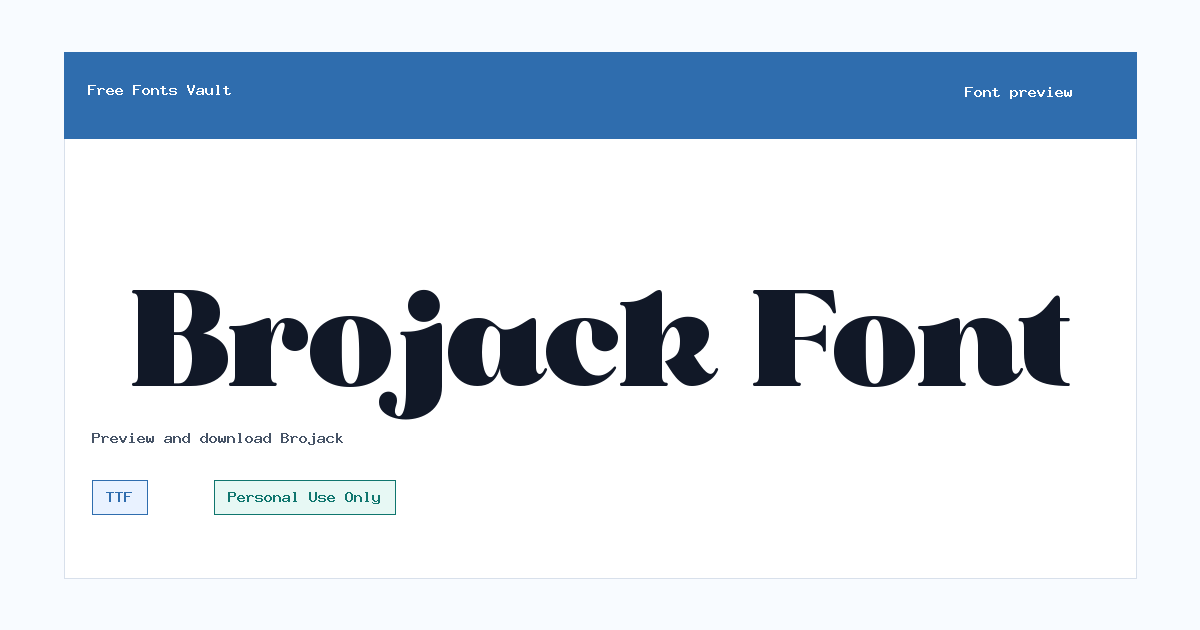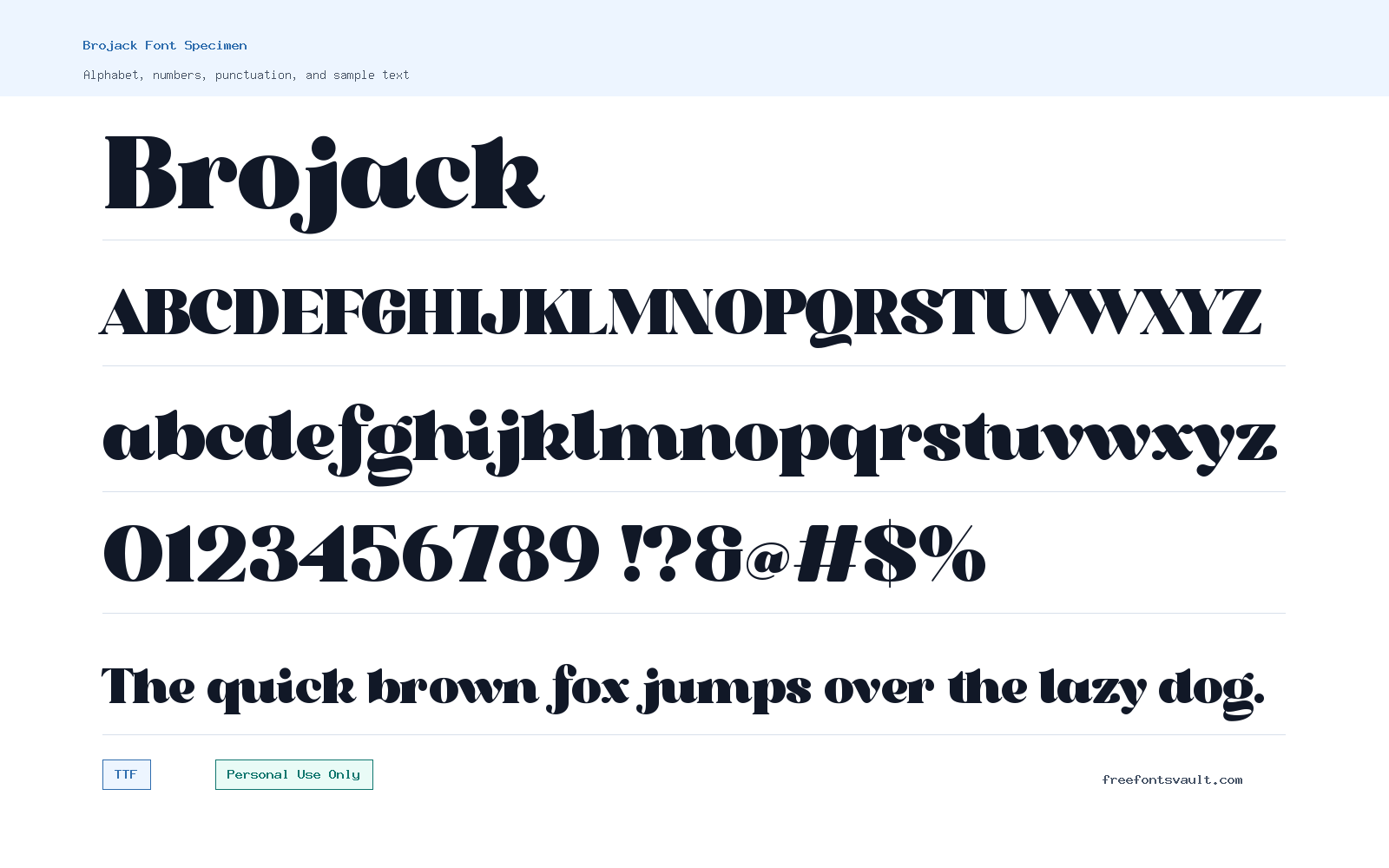
Brojack
Brojack Font
Brojack font.
Brojack is a bold retro serif font with thick strokes, strong curves, and decorative serifs. It is best treated as a display font: something to test in large sizes for titles, posters, packaging mockups, logo drafts, and short pieces of text where personality matters more than long-form reading.
About Brojack
Brojack has a vintage-inspired serif look, but it does not feel like a plain old-style text face. The heavier shapes give words a firm presence, while the curved details and serif endings add a more styled, headline-ready feel. That makes it useful when you want a title to carry a retro mood without relying on extra ornaments or effects. Try it in the preview with short words, brand-name ideas, menu headings, label text, or poster lines so you can see how the spacing and curves behave at display size.
Because Brojack is bold and expressive, it will usually work better for short text than for paragraphs. Use it for a main heading, badge, logo concept, cover line, or social graphic, then pair it with a simpler sans serif or a quiet text serif for supporting copy. If your design uses small labels, narrow columns, or a lot of uppercase letters, check readability carefully before committing. The downloadable file listed for this page is a TTF regular style, so it should be easy to test in common design apps, word processors, and web mockups that accept TrueType fonts.
• Bold retro serif style with thick strokes, rounded curves, and noticeable serif details.
• Vintage-style posters, headline graphics, album or cover concepts, and editorial display titles.
• Logo drafts, packaging mockups, labels, badges, and short branding text where a bold serif voice fits.
Start by previewing Brojack in the exact words you plan to use. Check uppercase and lowercase balance, spacing between rounded letters, and how it looks at the final size. For cleaner layouts, let Brojack handle the main display line and use a neutral companion font for body text, prices, captions, or longer descriptions.
What type of font is Brojack?
Brojack is a bold retro serif display font. It is better suited to headlines and short design text than long paragraphs.
Where does Brojack work best?
Use it for large, visible text such as posters, logo drafts, packaging mockups, badges, covers, and title graphics.
How should I pair Brojack with other fonts?
Pair it with a simple sans serif or a restrained text serif. Let Brojack carry the display role, and keep supporting text plain for easier reading.